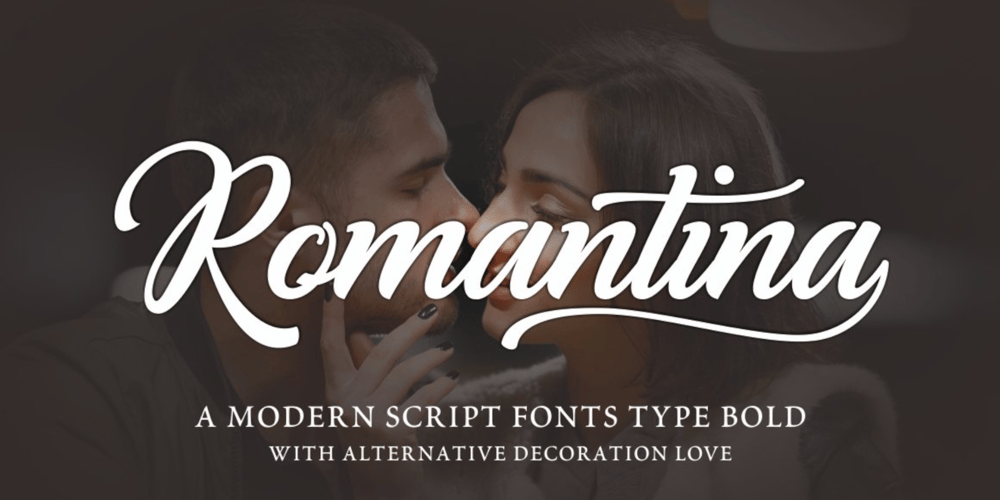
Romantina Script
Romantina Script font
Romantina Script Font Family was designed by Symon Adam Abdullah and published by Jorsecreative. Romantina Script contains 1 styles and family package options. Romantina is Font Calligraphy Script, designed in modern style so that this font is beautiful and nice to see. very good to use for brand, t-shirts, packaging brand, greeting card, invitation card etc.The features of this font is:• STANDARD UPERCASE• STANDARD LOWERCASE• SWITH ALTERNATIVES UPERCASE• STYLISTIC ALTERNATIVES LOWERCASE• NITIAL & TERMINAL ALTERNATIVE• STANDARD LIGATURES• DISCRETIONARY LIGATUR